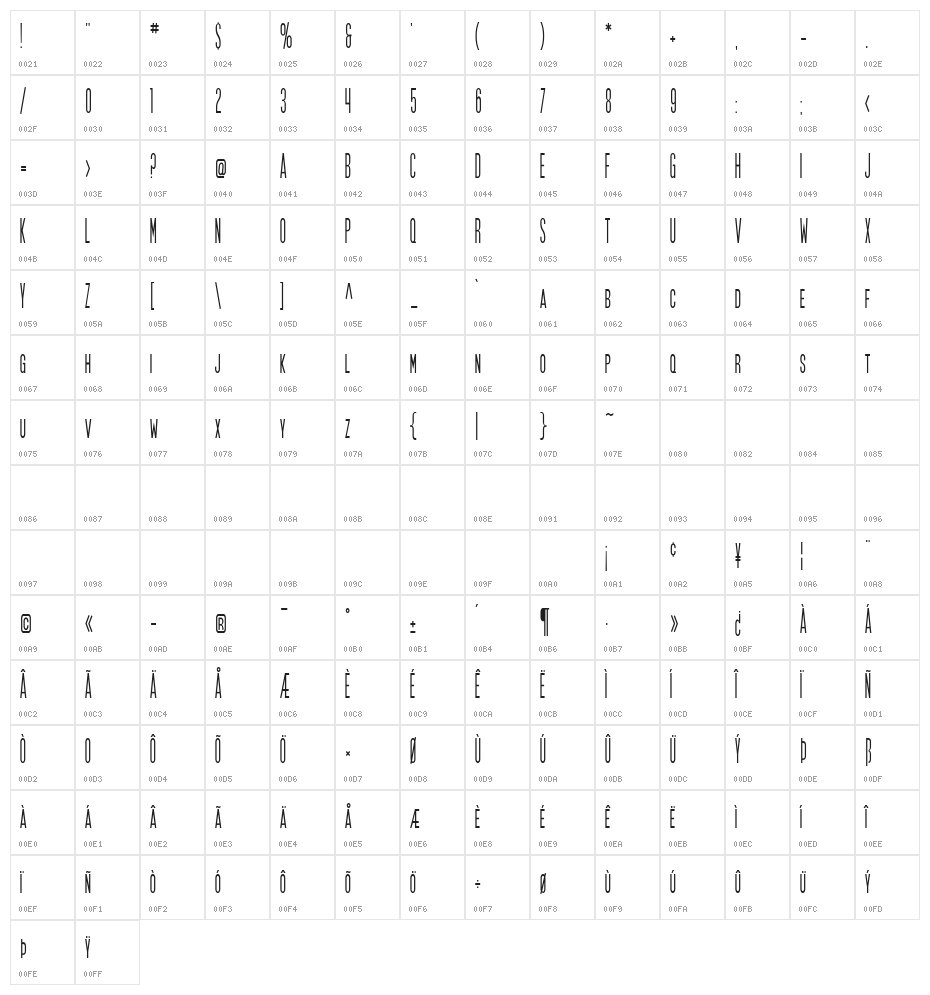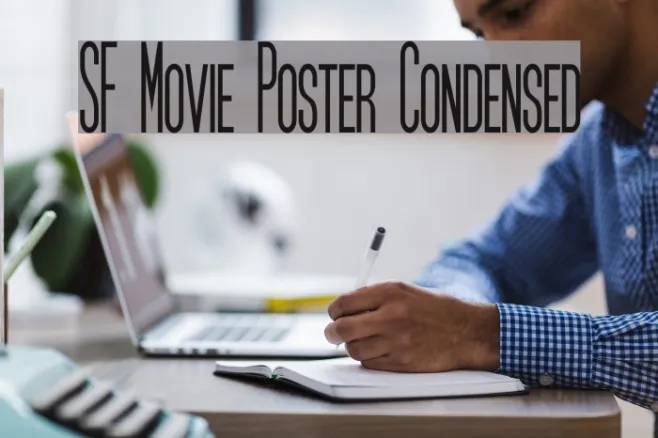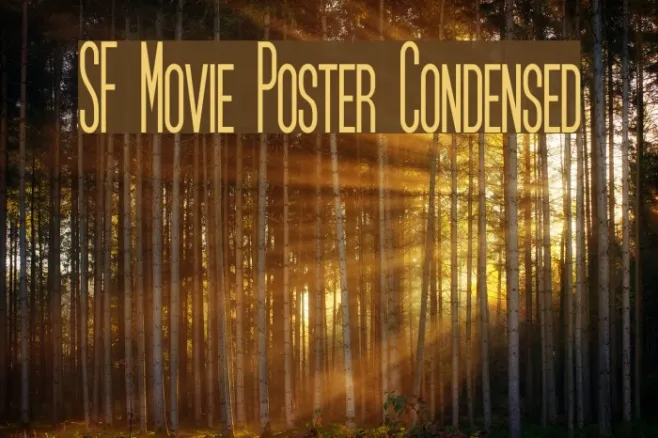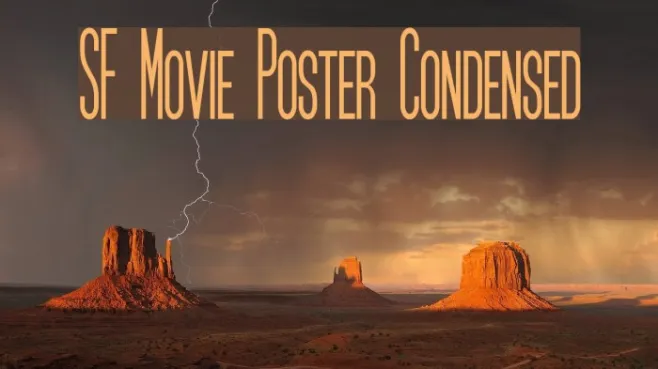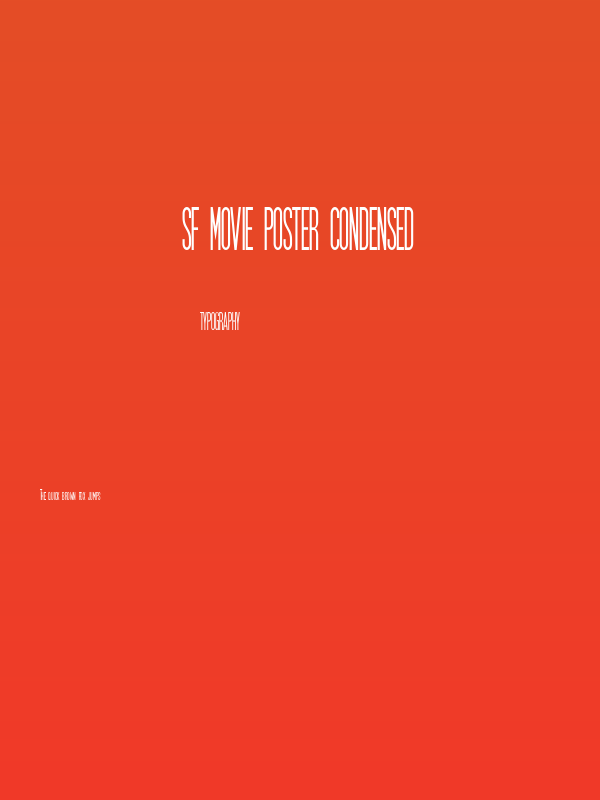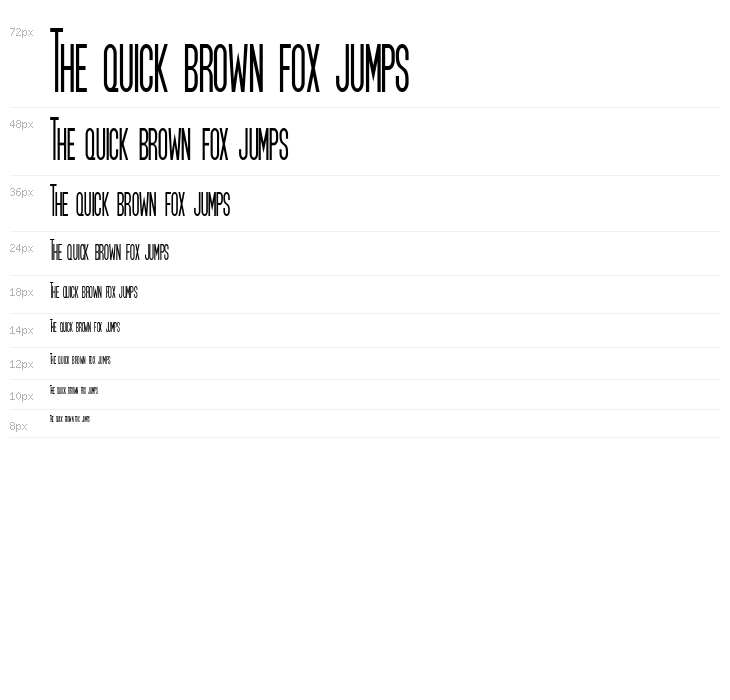
SF Movie Poster Condensed Font
This font features a tall and narrow design, emphasizing verticality with its condensed letterforms. The characters are clean and modern, with a sans-serif style that enhances readability while maintaining a sleek appearance. The uniform stroke width across all characters gives it a consistent and professional look. The uppercase letters are particularly elongated, adding to the dramatic and impactful aesthetic. This font is well-suited for creating a bold statement in any design project, with its striking presence and clear legibility.
| Proposed Projects | Ideal for movie posters, headlines, advertising, and branding materials where a strong visual impact is desired. |